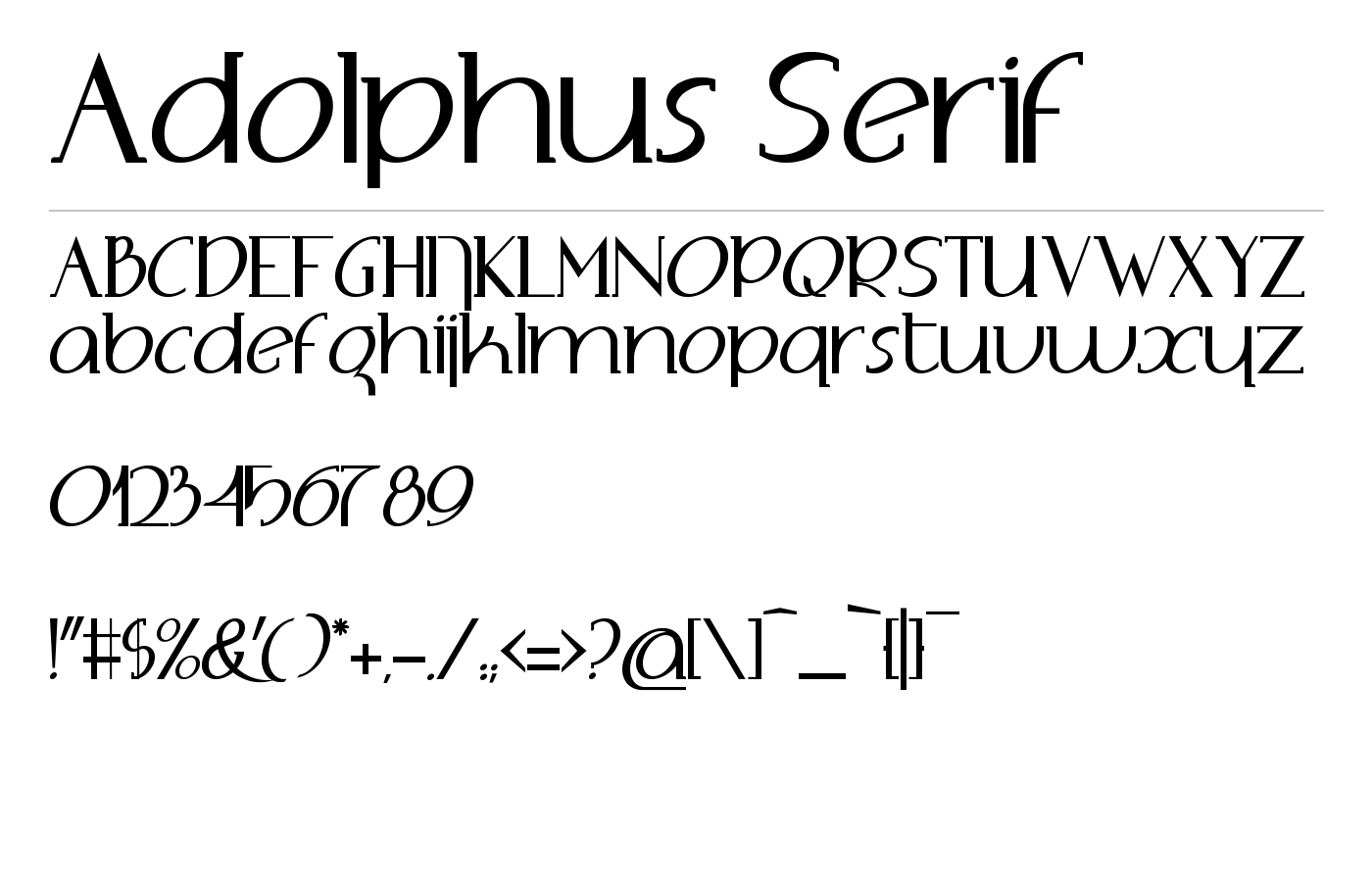
Adolphus Serif is an elegant, modern serif font with high contrast strokes and refined, thin serifs that give it a sophisticated yet approachable feel. Its tall, narrow letterforms and unique stylized details make it ideal for luxury branding, editorial headlines, and fashion packaging where a distinctive, upscale personality is desired. This font’s graceful shapes bring a blend of classic serif tradition and contemporary design flair, perfect for projects needing both style and readability.
Adolphus Serif Font
About Adolphus Serif Font
| Font family | Adolphus Serif Font |
| Designer | Adolfo Rojas |